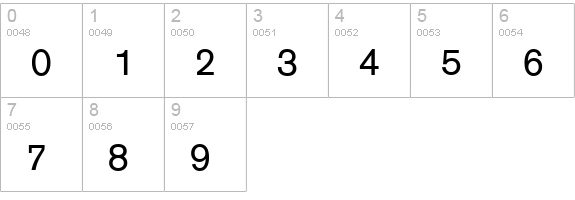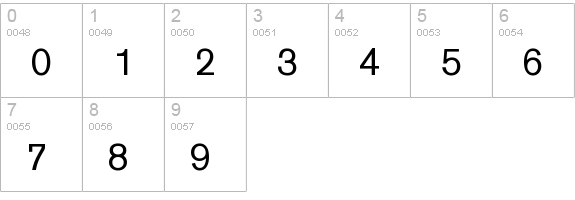
Ancona-Regular is the standard, neutral variant in the Ancona typeface family \xE2\x80\x94 well suited to general body text, paragraphs, and standard typographic work.
Ancona-Regular is a versatile and modern font that exudes elegance and sophistication. With its clean lines and sleek design, this font is perfect for a wide range of design projects, from branding to editorial design. Its balanced proportions and legible letterforms make it a great choice for both headlines and body text. What sets Ancona-Regular apart is that it is available for free download at FontsMarket.com. This means that you can easily access this high-quality font without any cost, making it a valuable addition to your font library. Whether you're a designer looking for a reliable go-to font or a beginner exploring typography, Ancona-Regular is a fantastic choice that combines style and accessibility. Elevate your designs with Ancona-Regular today!